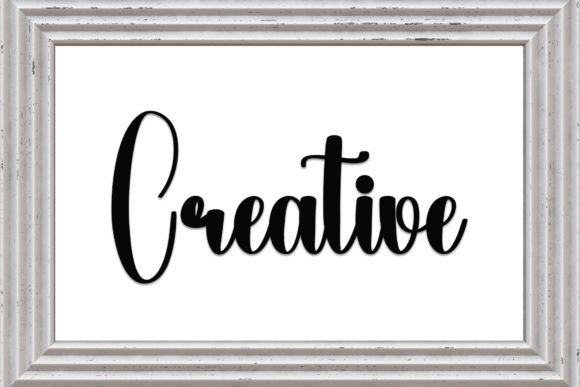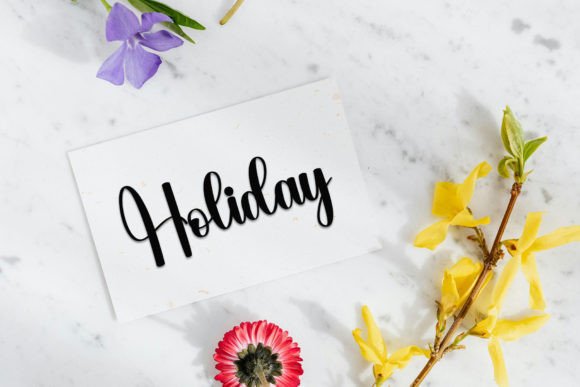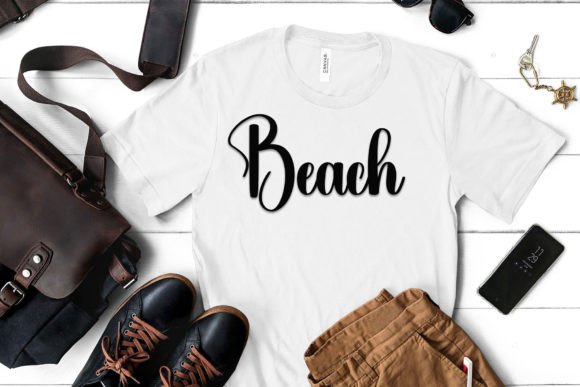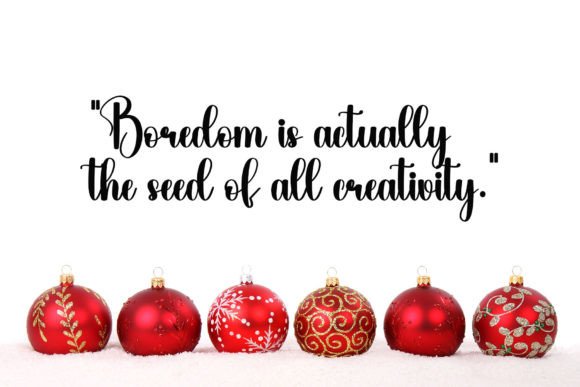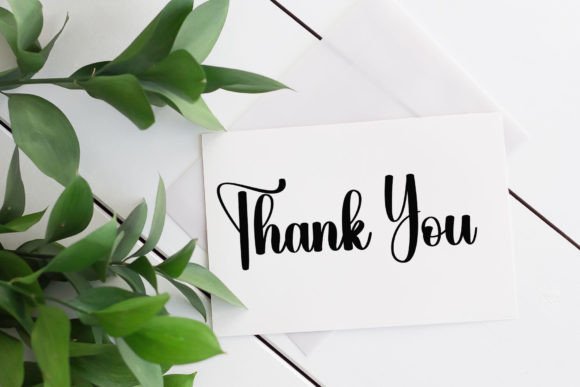
Discover the Timeless Elegance of Bride Font
Have you ever been stuck on a design project, pouring over countless font options, and suddenly, a single font catches your eye? For many designers, this moment is a turning point, and it happened to me when I stumbled upon the Bride Font. Its delicate, flowing script is a true showstopper, and its beauty is more than skin-deep – it’s a testament to the care and attention that went into crafting each character.
The Bride Font is a masterclass in elegance, with its well-balanced characters and subtle flair. Whether you’re working on a wedding invitation, a baby announcement, or any other special project, this font is sure to bring a touch of sophistication and whimsy to your design. For designers, the value of the Bride Font lies in its versatility – it pairs beautifully with a wide range of designs, from classic and traditional to modern and trendy.
Bride Font Key Features
- Font Family: Bride is a script font, ideal for wedding invitations, wedding stationery, and other romantic designs.
- Unique Characteristics: Bride font features elegant, flowing lines, and intricate details, making it perfect for creating beautiful, handwritten-style designs.
Bride Font Review
I recently had the chance to work with the Bride font, and I must say it’s a lovely script font. ✨ One thing that immediately caught my attention was its elegant, handwritten feel. It’s perfect for wedding invitations, engagement announcements, or any other project where a touch of romance is needed.
Here are some of the things I liked about the Bride font:
- Its flowing connections between letters make it perfect for words that need to be connected, like in titles or headings.
- The font comes in a range of weights, from light to bold, giving you flexibility in choosing the right level of emphasis for your text.
- The font is highly legible, even at smaller font sizes, making it a great choice for body text.
However, I did encounter a few limitations:
- The font may not be the best choice for projects that require a lot of bold or italic text, as the bold weight can look a bit chunky and the italic can be difficult to read.
- The font may not be suitable for digital displays, as it can be difficult to read at smaller sizes on screens.
- The font does not come with a lot of customization options, so you may need to get creative with your design to get the look you want.
Overall, I think the Bride font is a beautiful and elegant choice for the right project. While it may have some limitations, it’s definitely worth considering for any design that requires a touch of romance and whimsy. ⚠️ Just be aware of its limitations and use it thoughtfully.
Tips for Getting the Most Out of the Bride Font
For best results, use the Bride Font in conjunction with elegant graphics and a soft color palette.
Experiment with different font sizes and styles to create a unique look.
The Bride Font is ideal for:
- Wedding website and blog design
- Wedding planning and organization materials